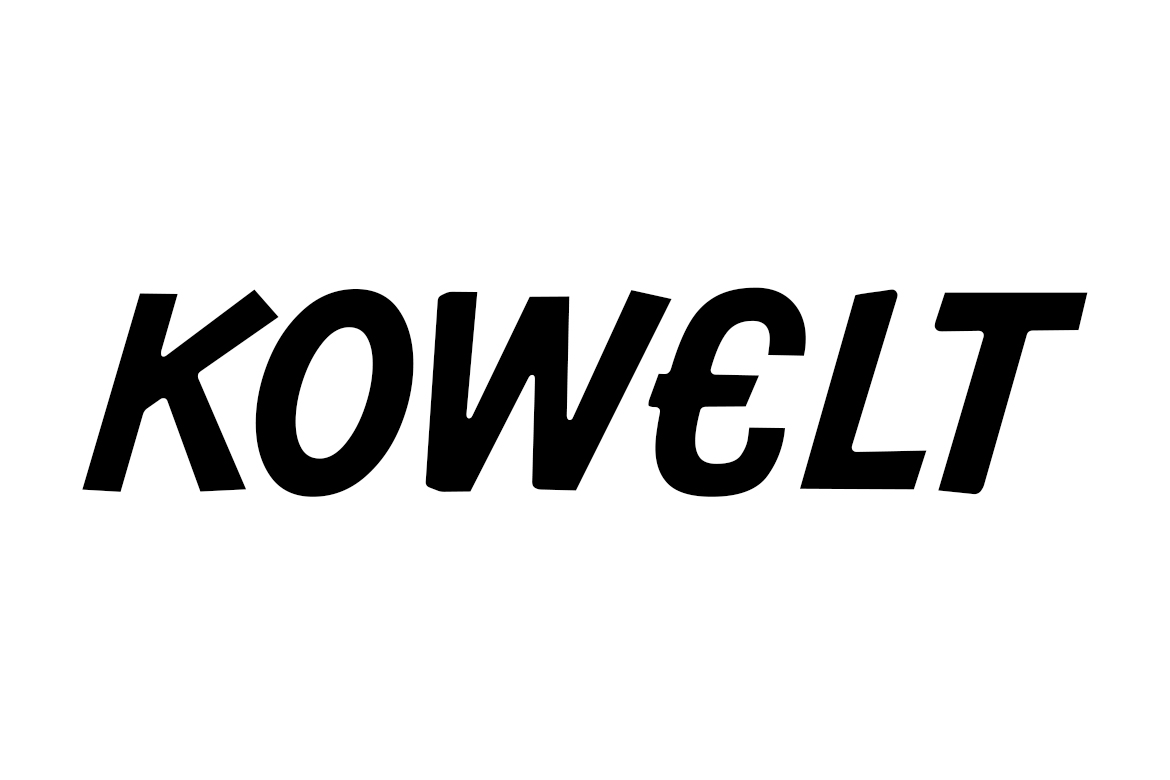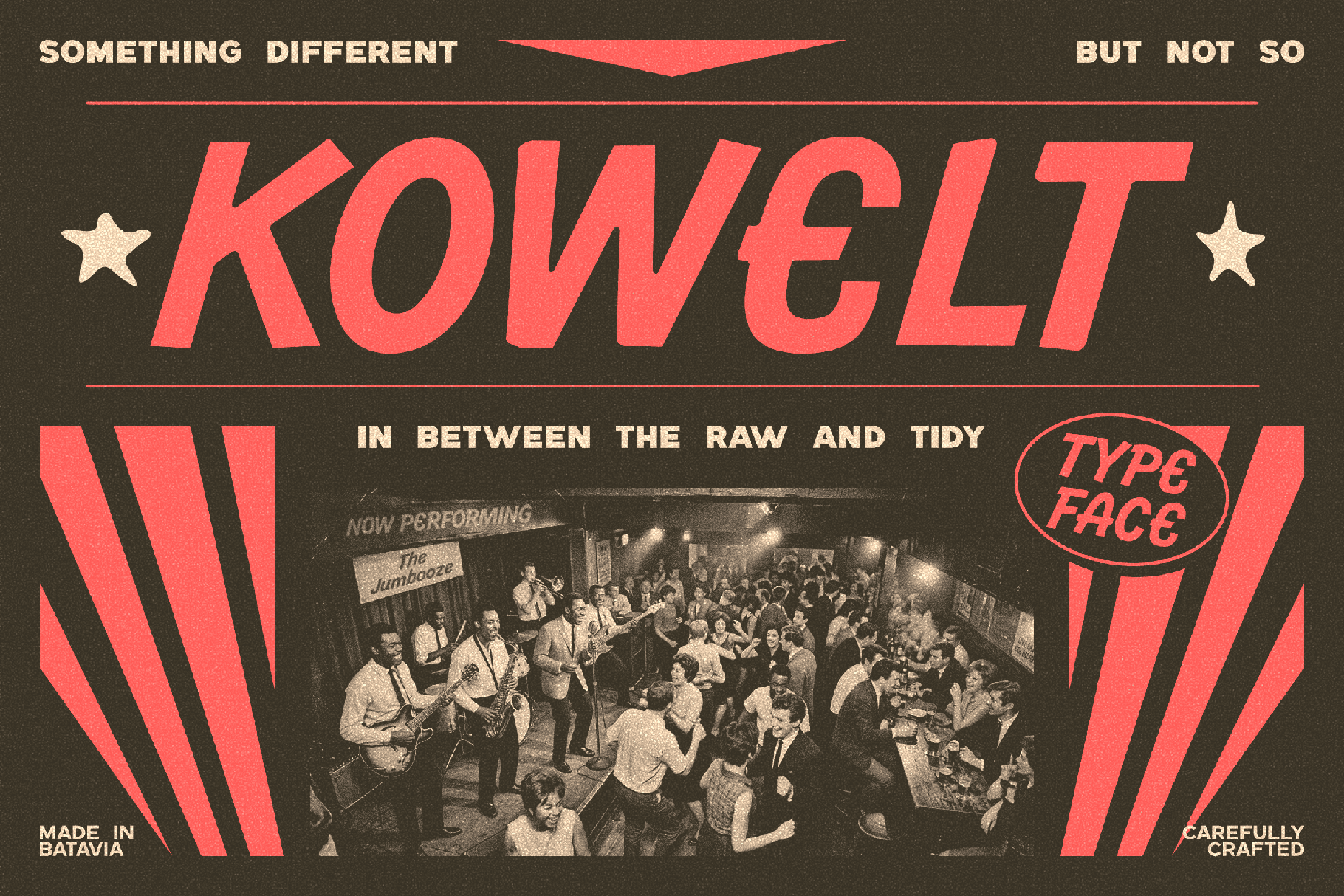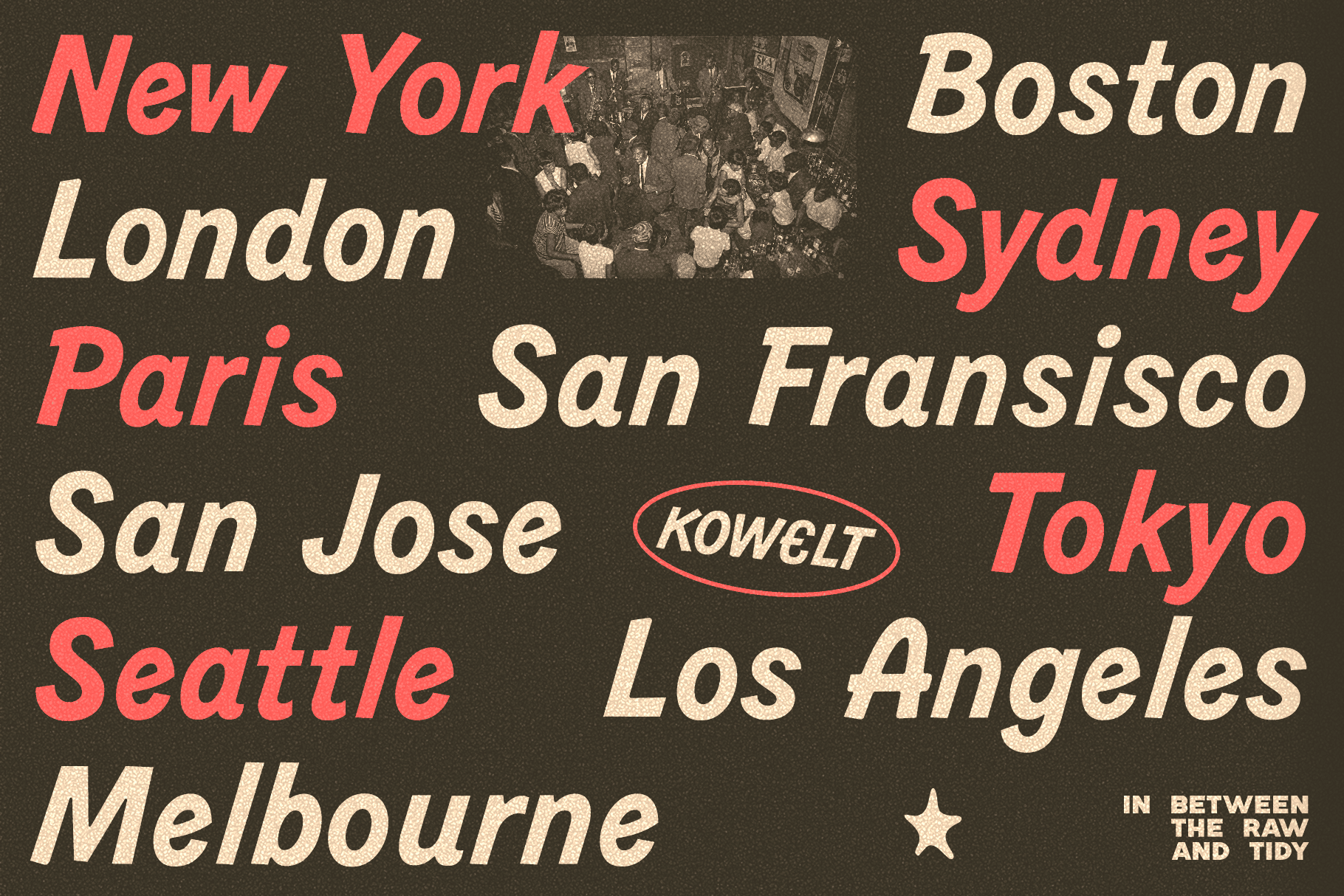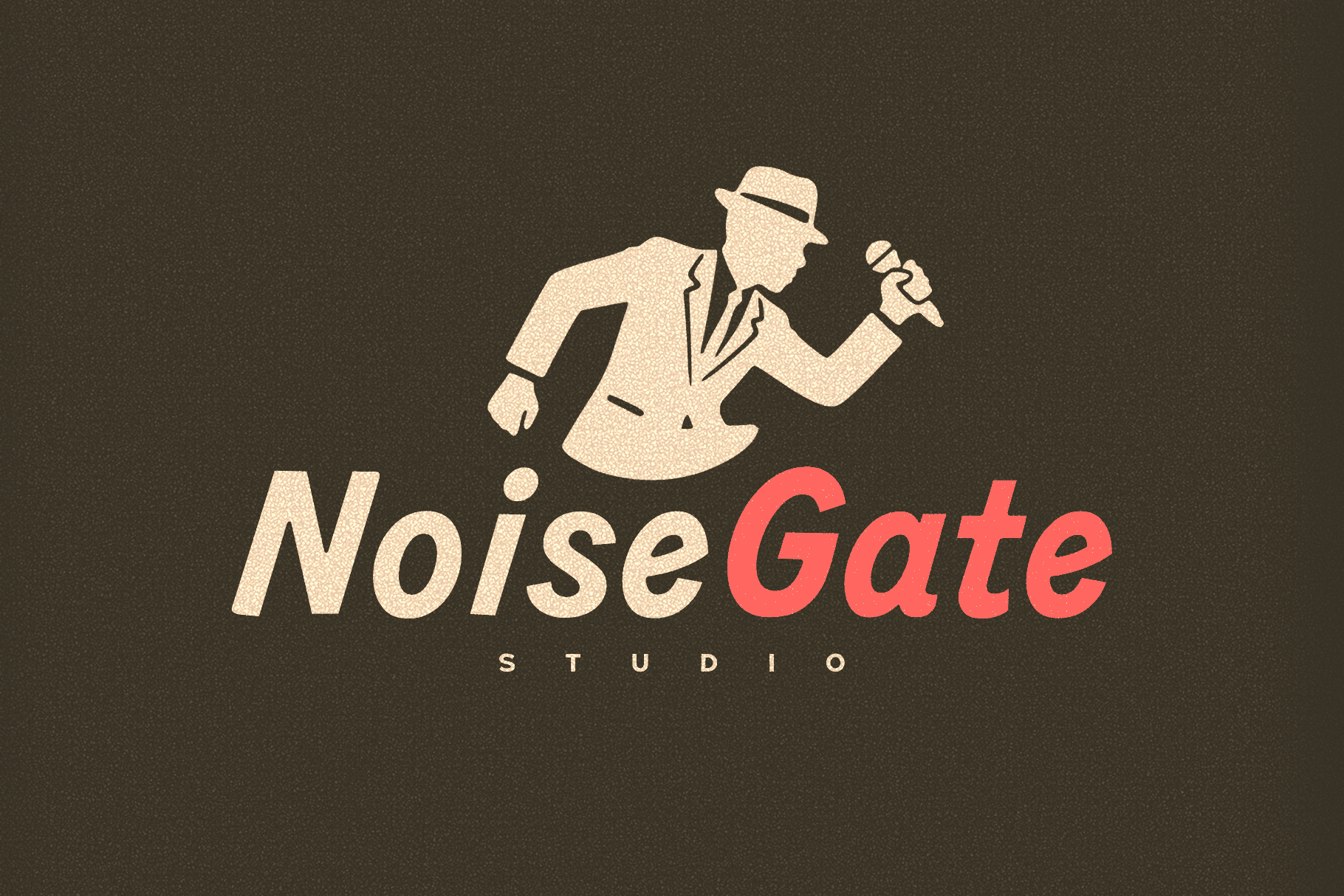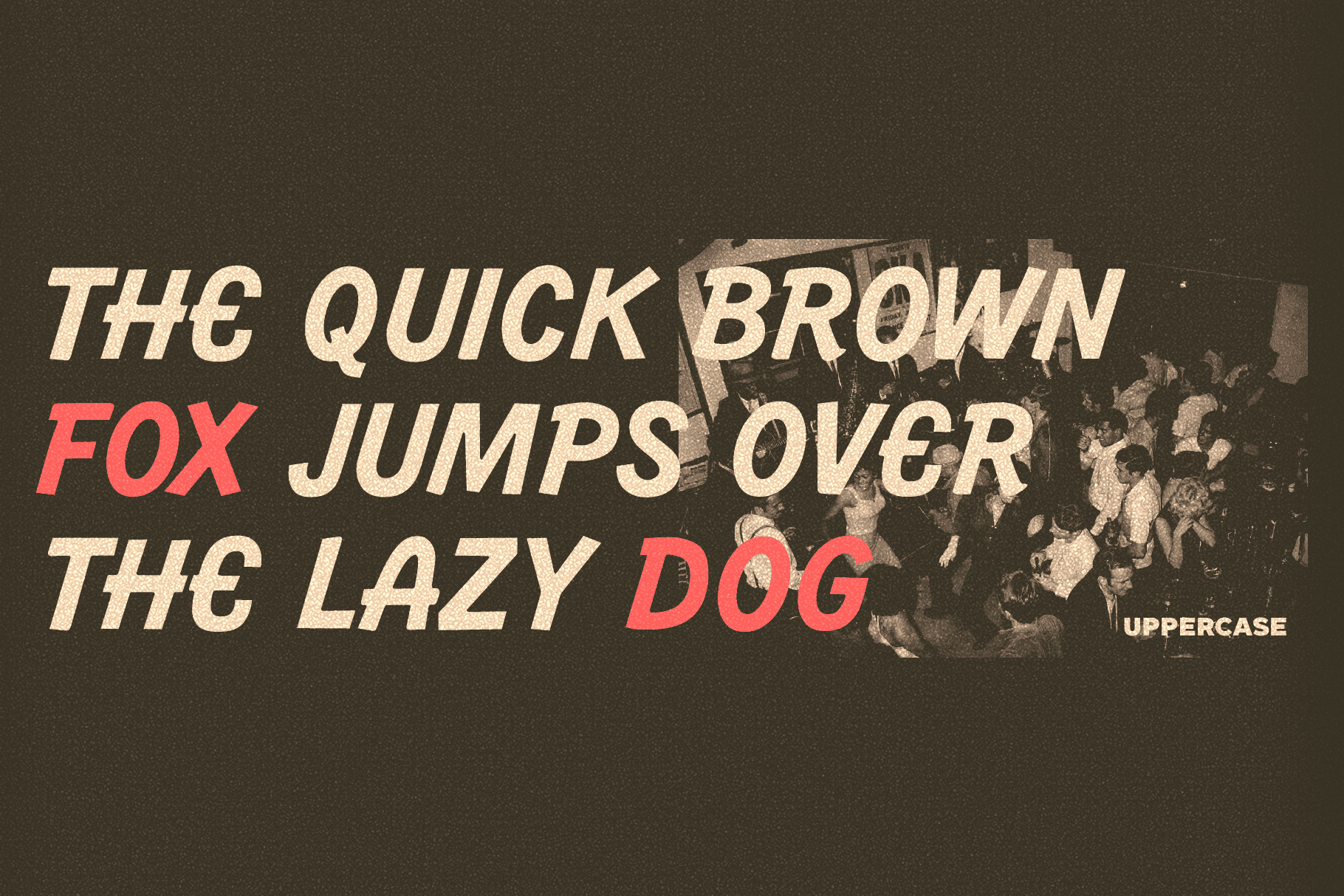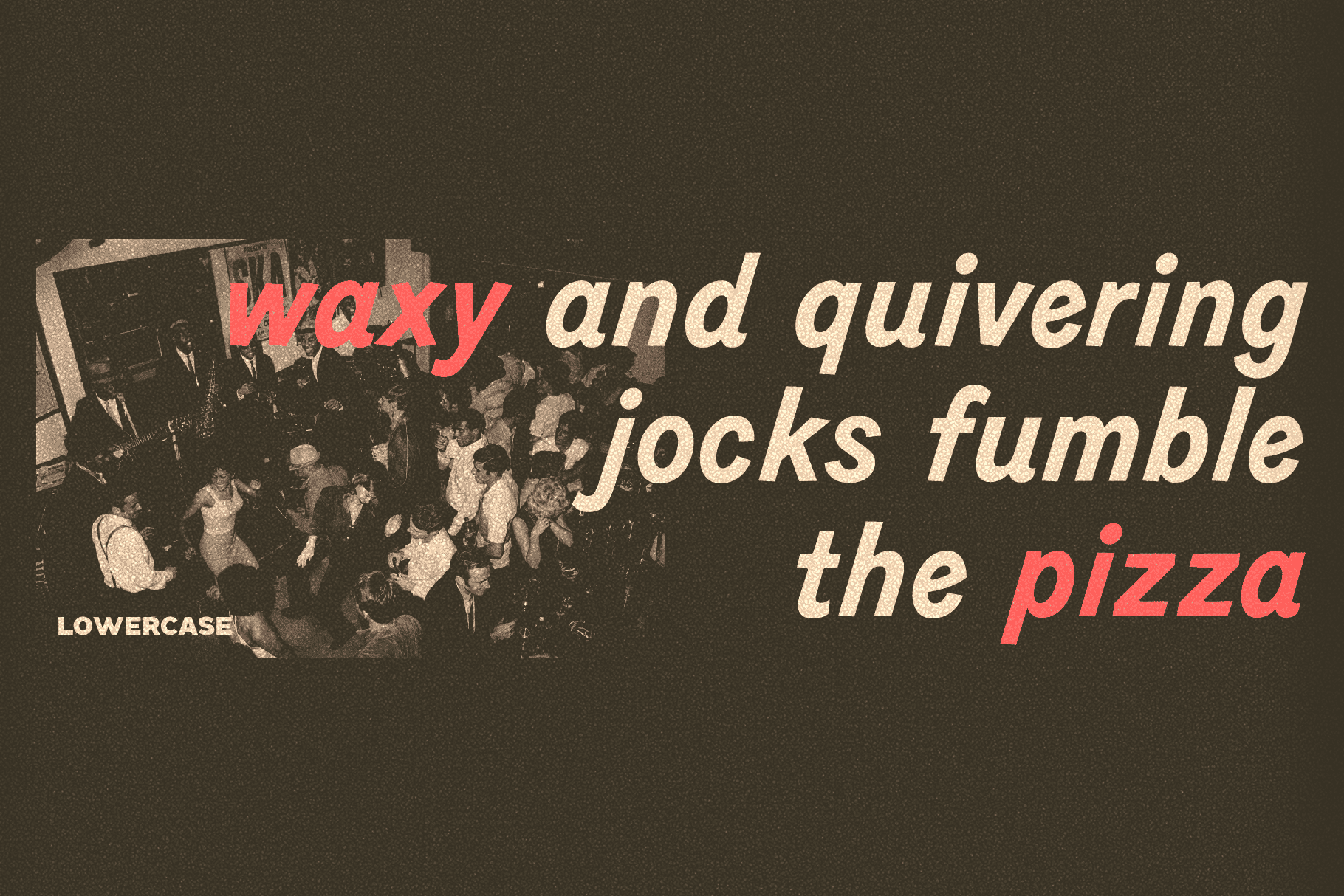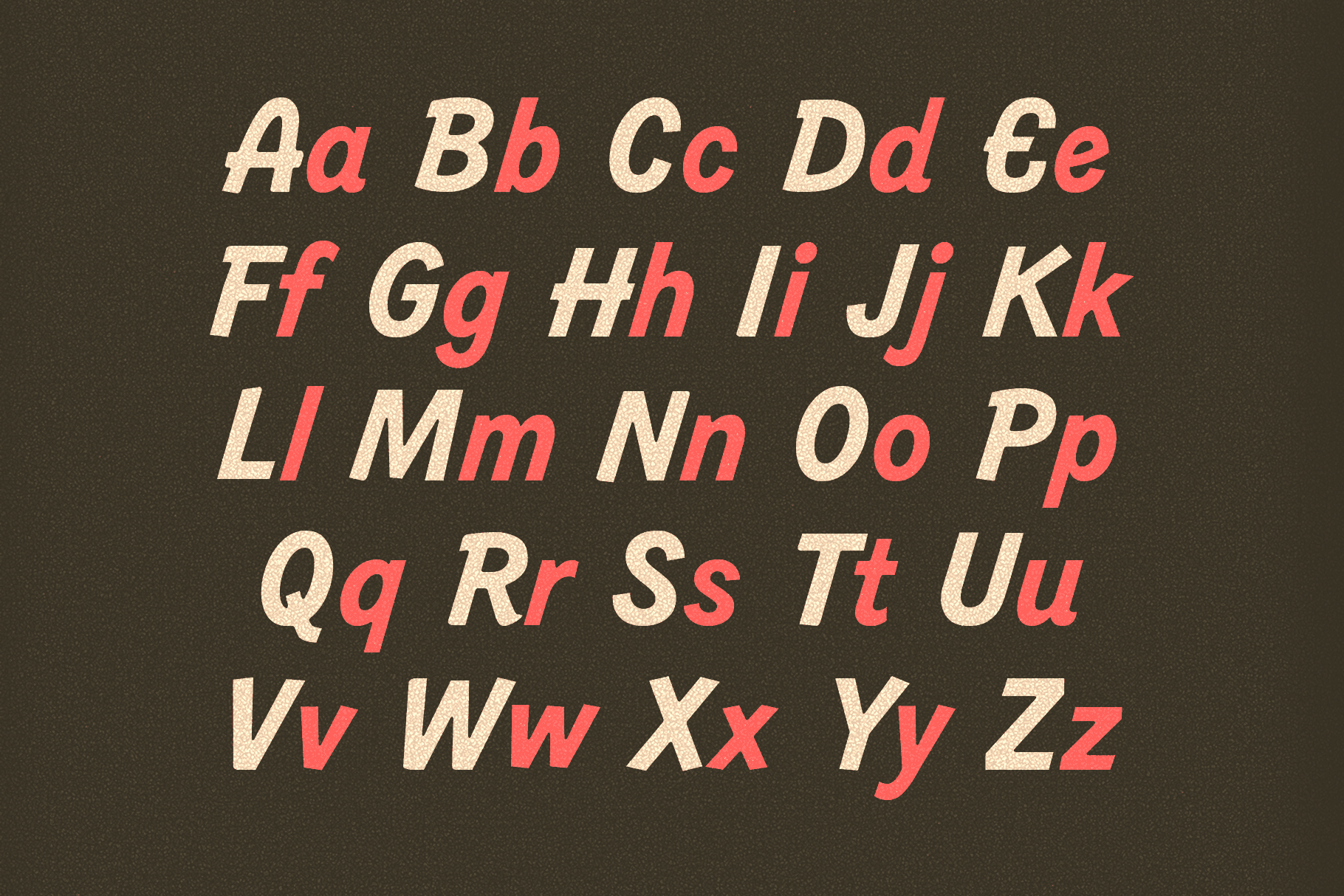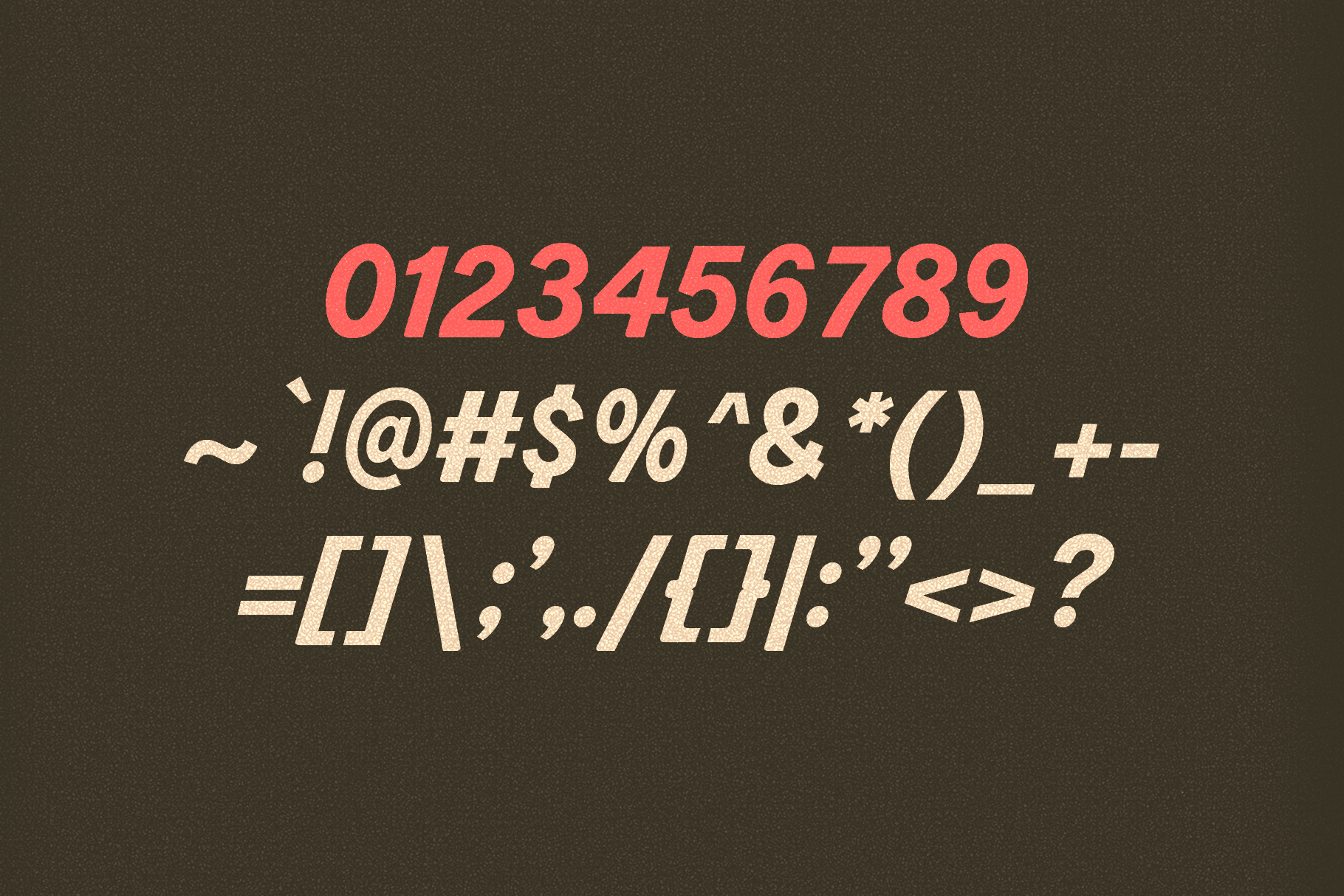
Kowelt – Bold Vintage Fonts
Introducing Kowelt: The Bold, Handmade Retro Font with Raw, Underground Swagger
Craving an authentic voice for your designs? A dose of pure, uncut rock ‘n’ roll history? Stop looking.
Meet Kowelt.
This isn’t just a font; it’s a feeling. It’s the sweat-soaked, electric buzz of a basement show in ’79. It’s the smell of old vinyl and cheaper gin. Kowelt is a heavy, bold, and forward-sloping italic typeface that channels the raw energy of underground music poster design from the late 1970s and early 1980s.
Every single letter form of Kowelt has a traditional, handmade feel. This isn’t digital perfection; it’s the gritty, textured, screen-printed soul of a time when art was made by hand and hung with tape. It’s designed to make an impact, with a weight that demands attention.
Why choose Kowelt for your next project?
- Retro Authenticity: Perfect for recreating the aesthetic of punk, New Wave, or garage rock gigs.
- Bold Headline Power: Command attention in logos, titles, poster designs, album covers, and t-shirts.
- Unique, Handmade Character: Unlike sanitized script fonts, Kowelt provides genuine, raw texture.
- Versatility with Attitude: Perfect for streetwear brands, breweries, music festivals, and any project that needs an independent, rebellious spirit.
Your search for the perfect vintage italic font ends here. Kowelt delivers the power, the grit, and the unmistakable cool of an era when design made noise.
Give your work a voice that screams.
Ready to rock your designs with true, vintage, underground character?